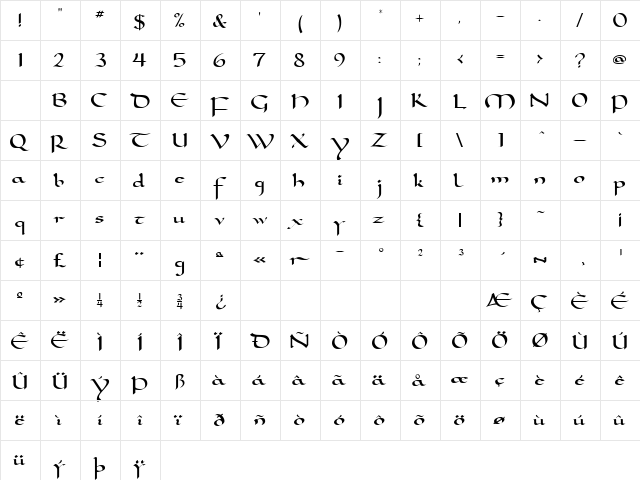
Samovar SSi Regular
Design Context for Samovar SSi Typeface
Samovar SSi is a composed and adaptable typeface that performs quietly and consistently across a wide range of design contexts.